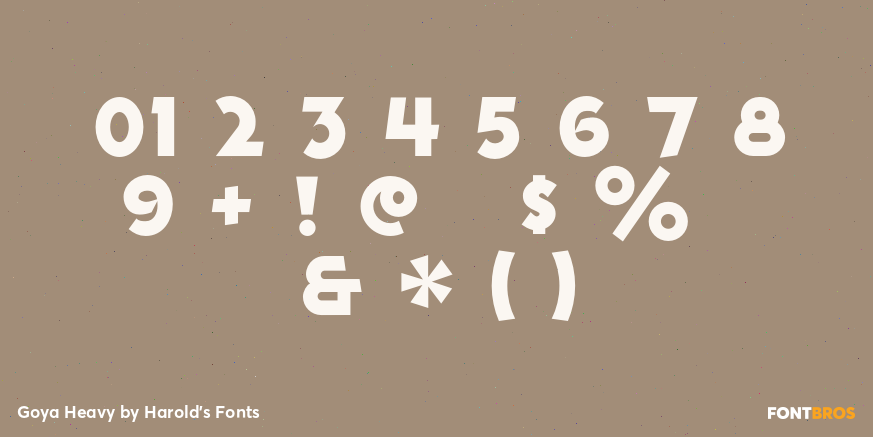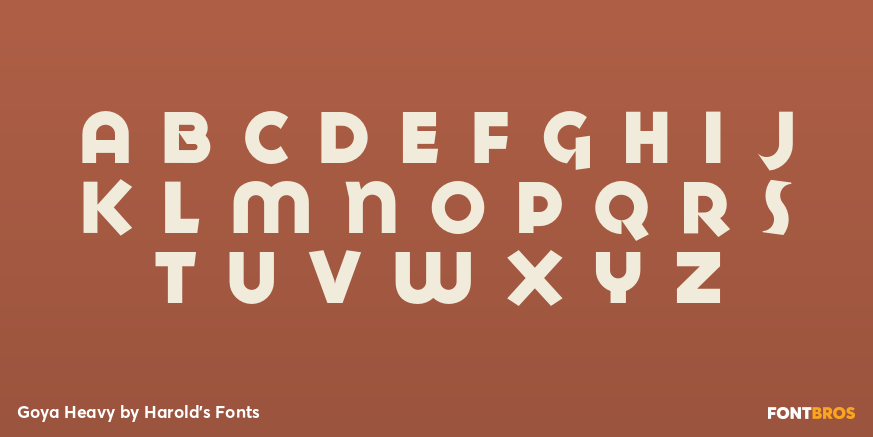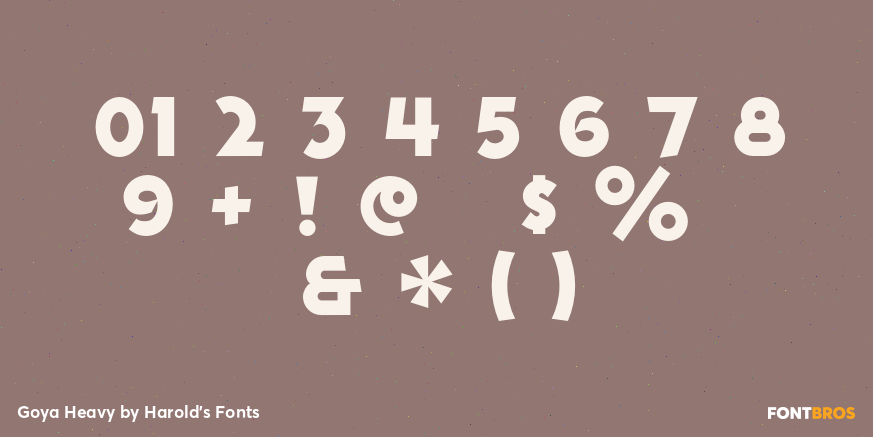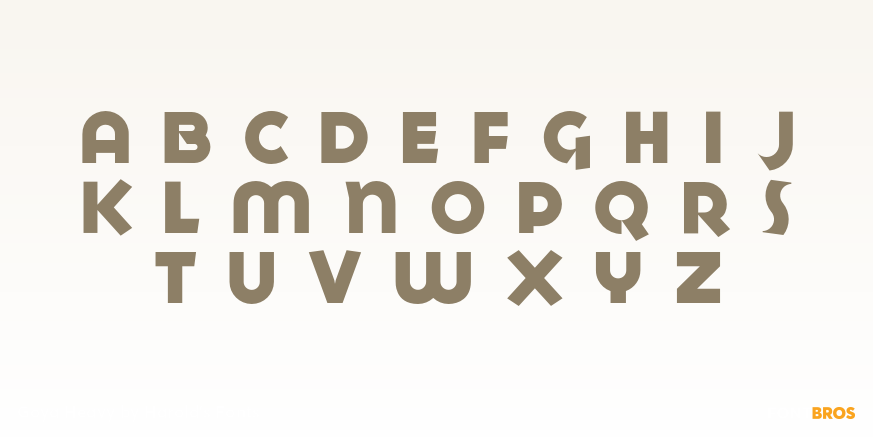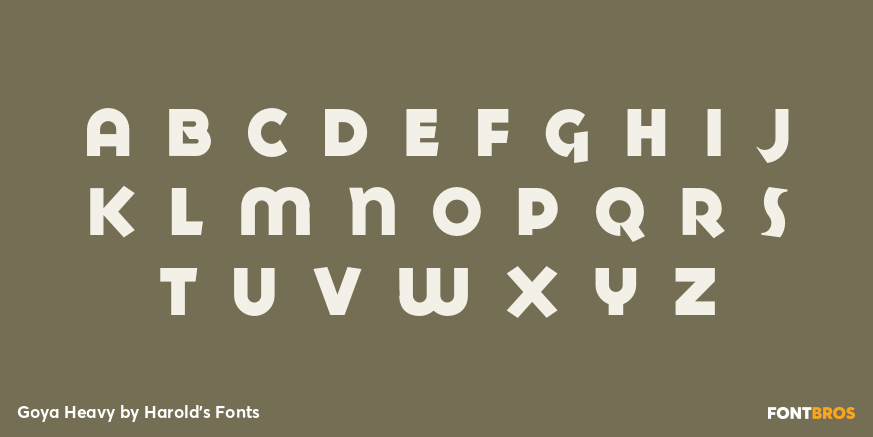
Goya Heavy
The five GOYA fonts (including light, medium, heavy, ultra, and inline) were inspired by the 4-letter logo of the Goya food products company. Like my Red Circle font, I was inspired by a vintage logo and imagined a full alphabet, numbers, etc. Each font includes small caps in the lowercase positions for more variety.